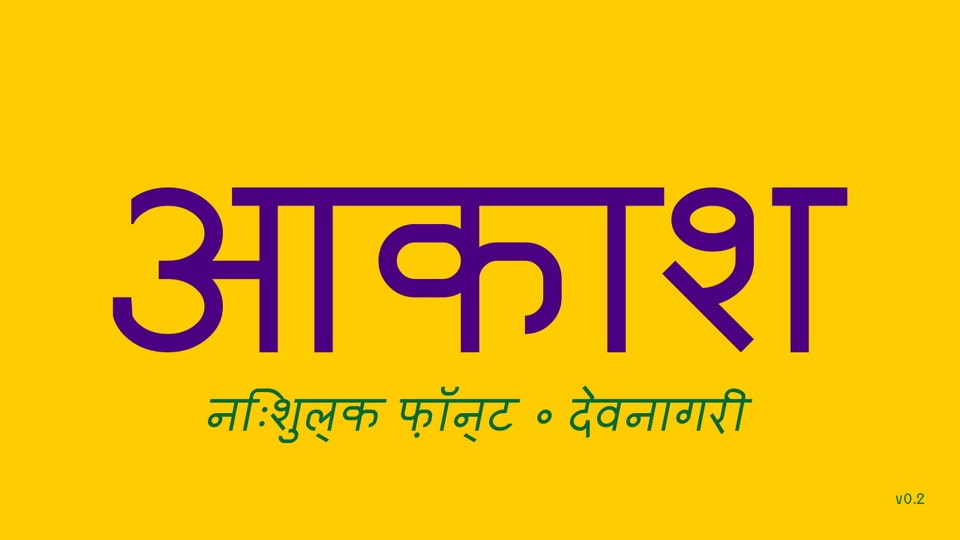
Download Akasha font, a typeface that effortlessly combines the simplicity of a sans serif typeface with a mechanical aesthetic. Akasha font is perfect for projects that require a clean, no-nonsense design with a hint of industrial flavor.